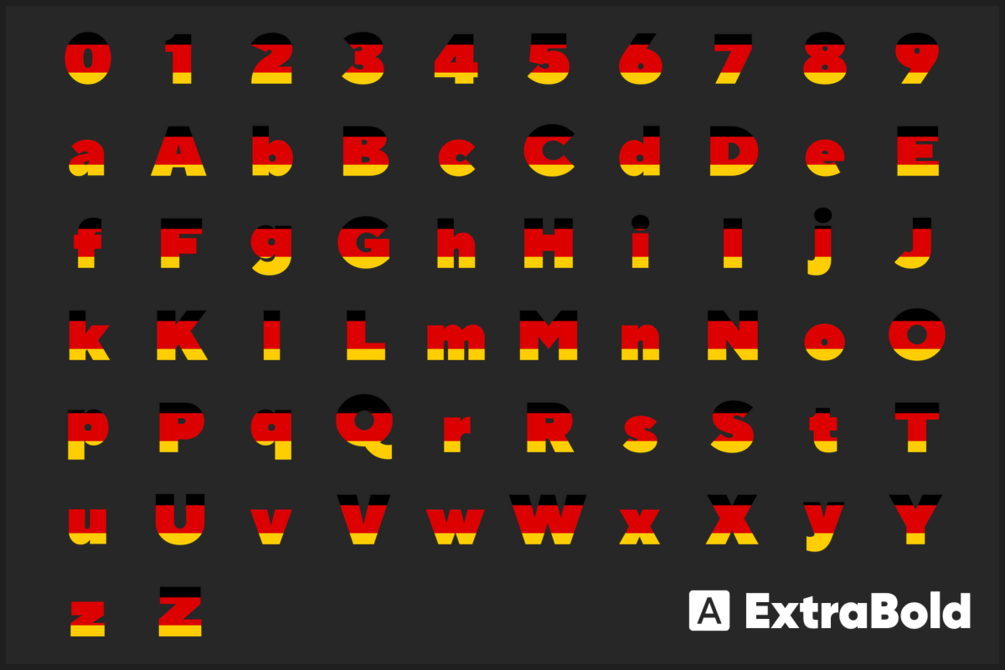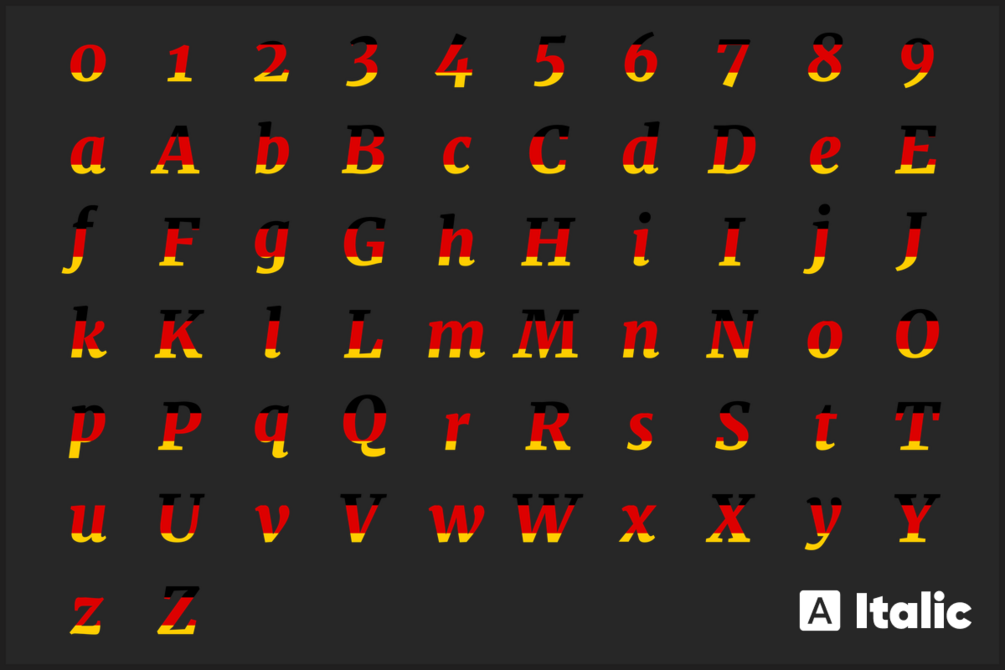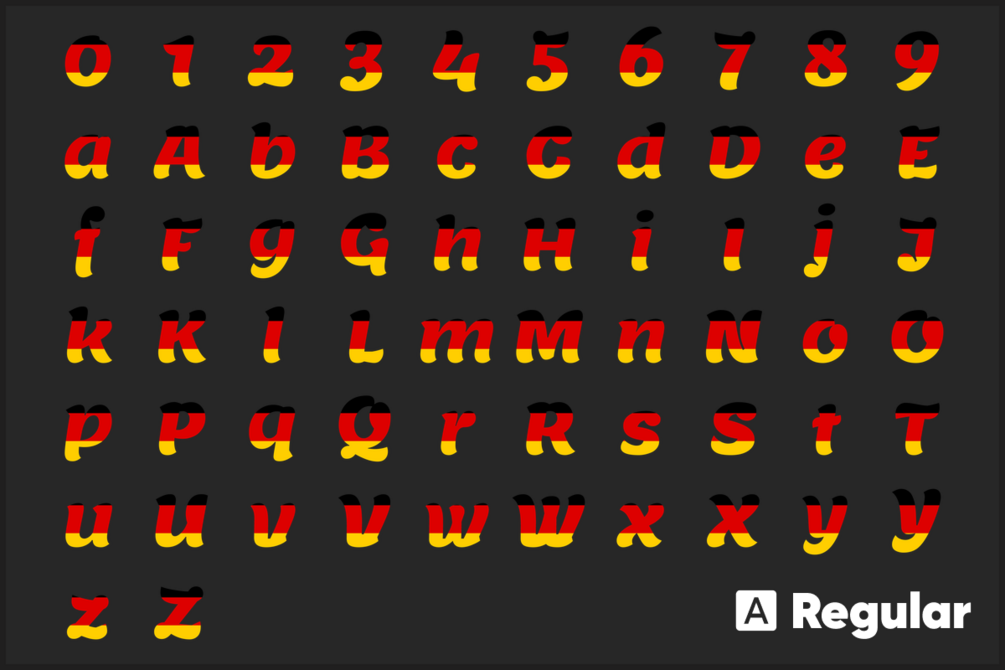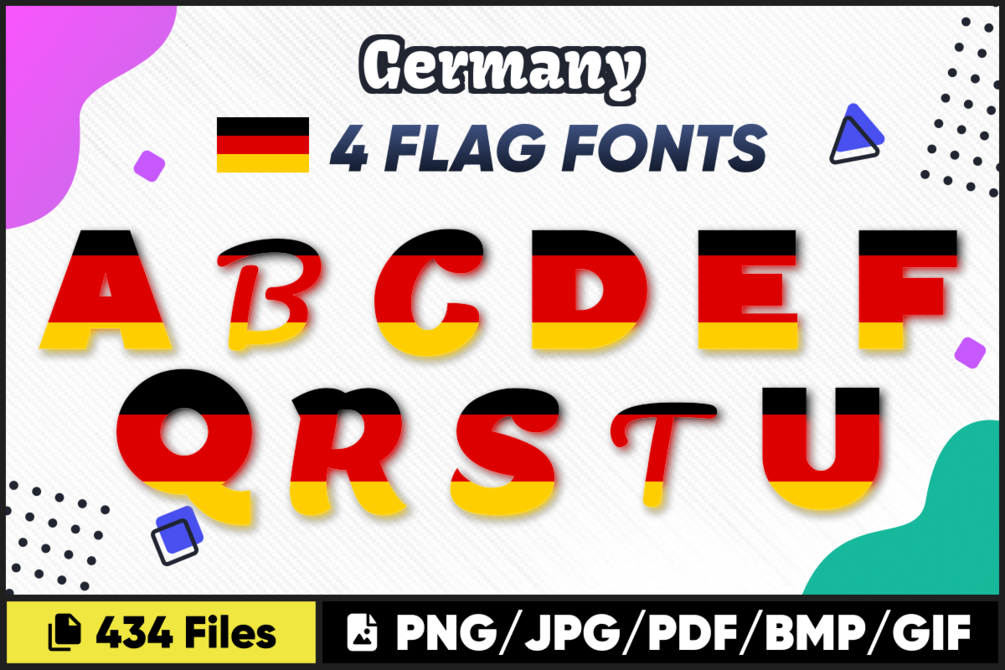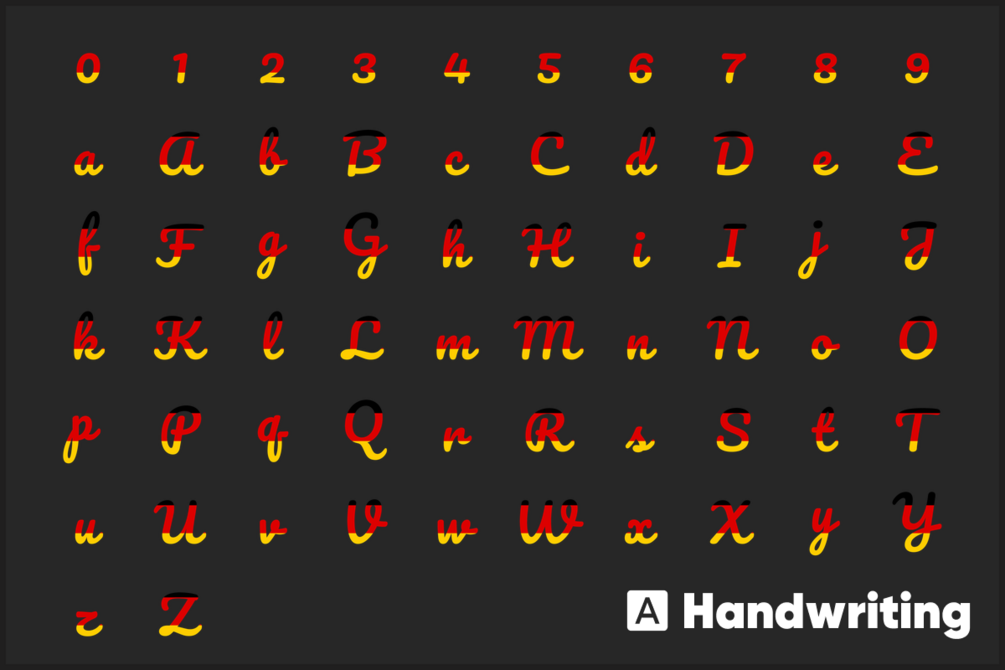
Introducing Germany Font free download Flag Font, Alphabet, Digital Cut Files. These top-quality country font images are perfect for all your crafting needs! Use Germany Font free download flag PNG files for t-shirt designs, scrapbooking, photo albums, card making, mug designs, and prints. The possibilities are endless!